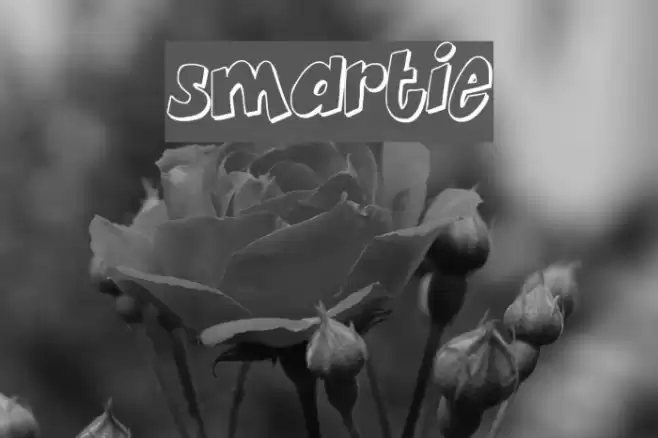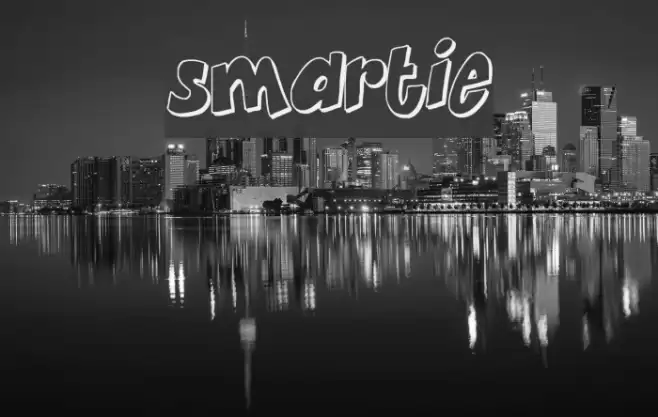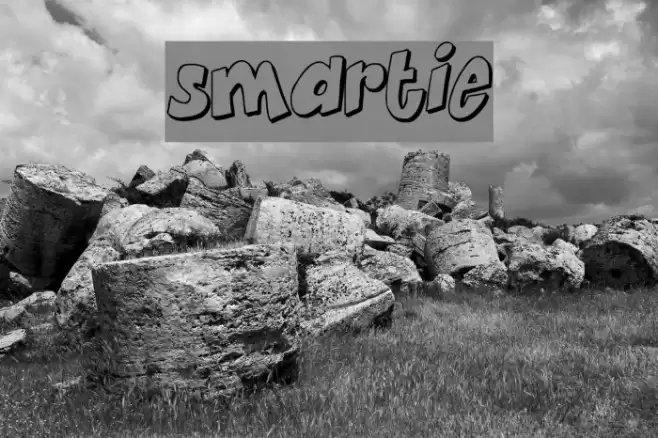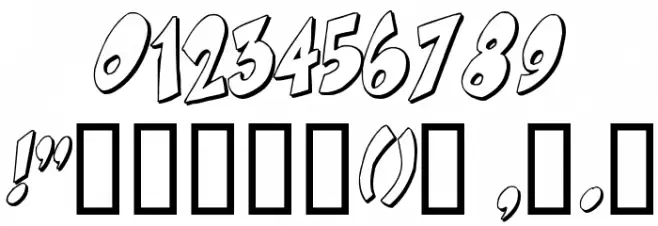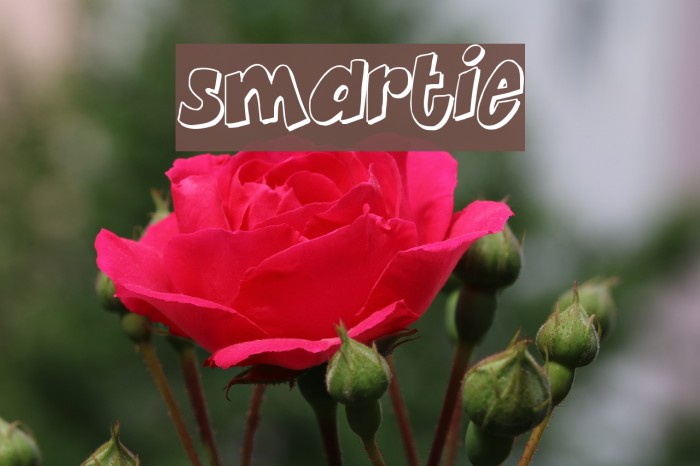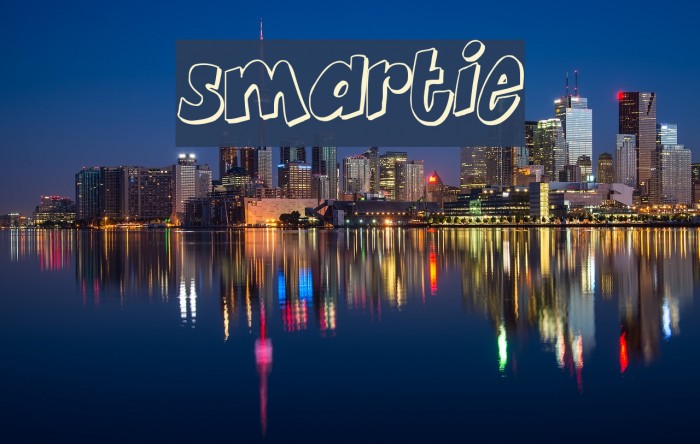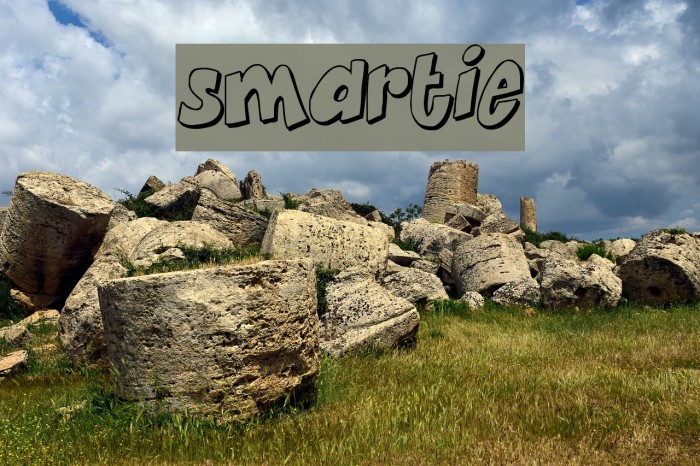
Smartie Font
Smartie Description
This playful and energetic font features a bold, cartoon-like style with a three-dimensional effect. The letters are slightly slanted, adding a sense of movement and dynamism. The thick outlines and shadowing give it a distinctive, eye-catching appearance. The font maintains a consistent weight throughout, with rounded edges that soften its overall look. Its unique character shapes and exaggerated forms make it ideal for creative and informal projects. The numbers and special characters follow the same lively design, ensuring a cohesive look across all text elements.
A bold, playful font with a 3D effect and cartoon-like style from Cartoon fonts.
- Proposed Projects: Ideal for children's books, comic strips, playful branding, and party invitations.
- Overall Style: Playful